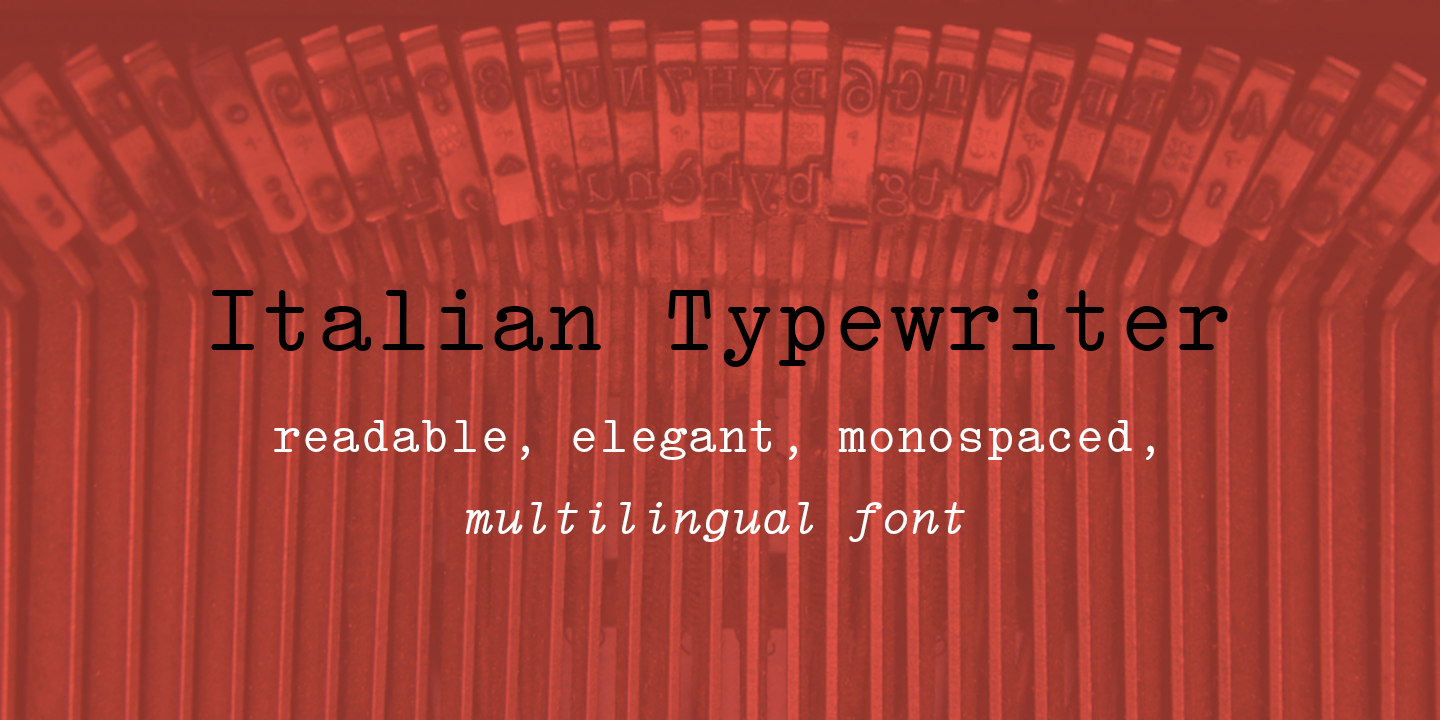
This charming and authentic typeface is perfectly suited for a variety of applications that call for a vintage or handcrafted feel, including nostalgic journal entries, classic postcards, indie film titles, retro-themed branding, quirky product packaging, and any project aiming to evoke the timeless appeal of old-world correspondence. Its distinct character ensures your message is delivered with genuine warmth and originality.
What makes the Italian Typewriter Font so exciting? It encapsulates the nostalgic charm and inherent imperfections of a bygone era. This isn't just a font; it's a piece of history, reflecting the unique impression of ink on paper from a classic Italian writing machine. Its slightly irregular baseline and subtly varied character shapes give it an organic, human touch that modern digital fonts often lack. Whether you're crafting a personal blog, a boutique brand, or a creative design project, the Italian Typewriter Font provides an immediate sense of authenticity, making your text feel like a rediscovered treasure from an old attic.
The Italian Typewriter Font typically comes with a practical and cohesive family designed to provide you with versatile design options. This often includes a regular weight, sometimes accompanied by bold or italic variations to add emphasis while maintaining its consistent vintage aesthetic. It might also feature alternative characters or ligatures that further enhance its authentic, hand-typed appearance, ensuring that your typography truly reflects the classic era it represents with nuanced charm.